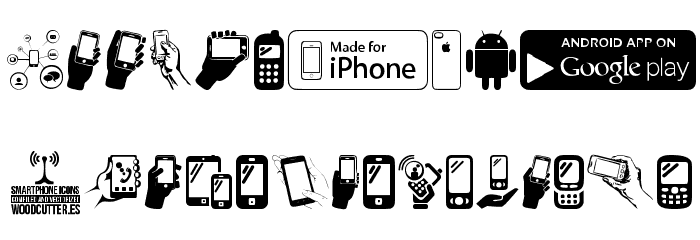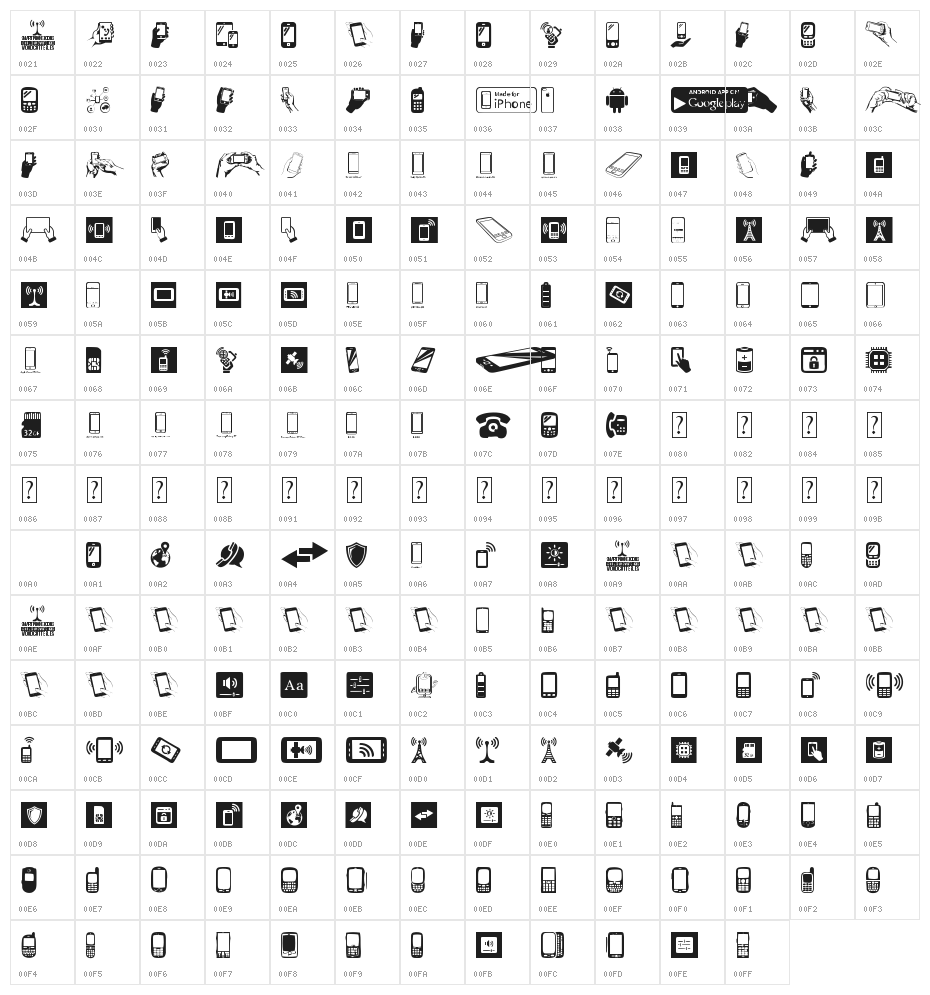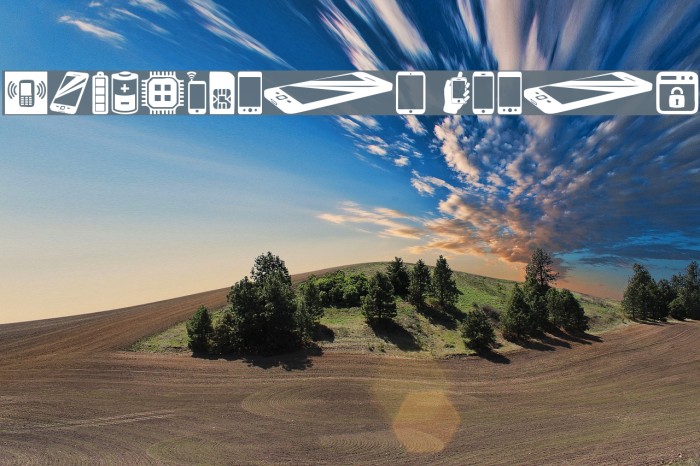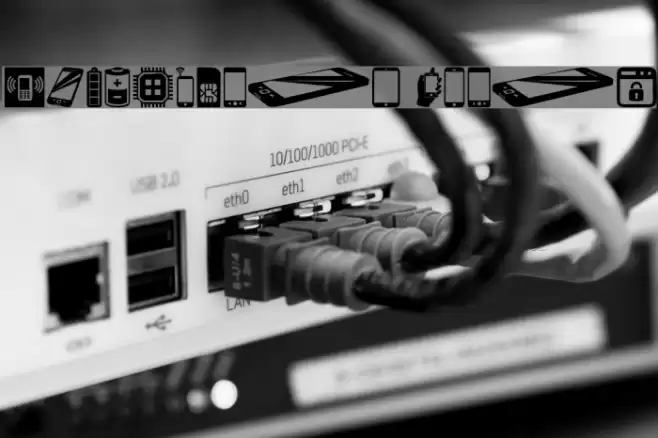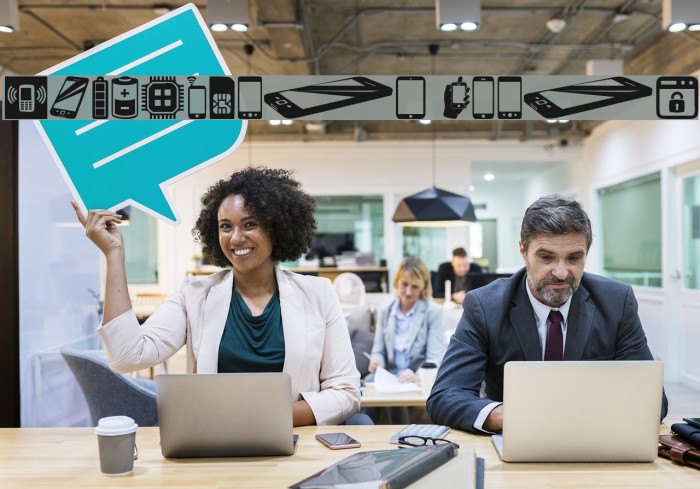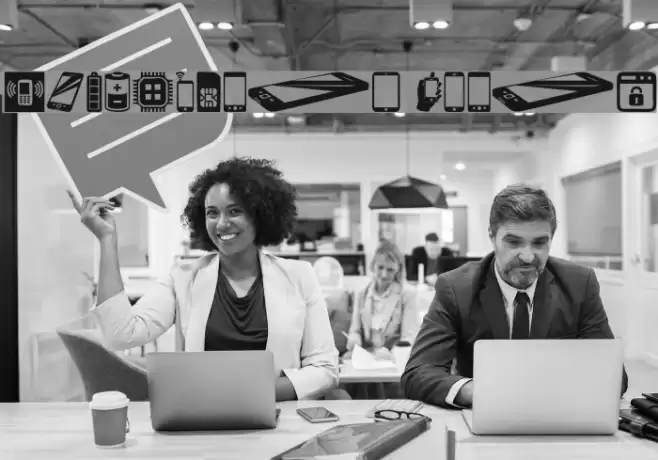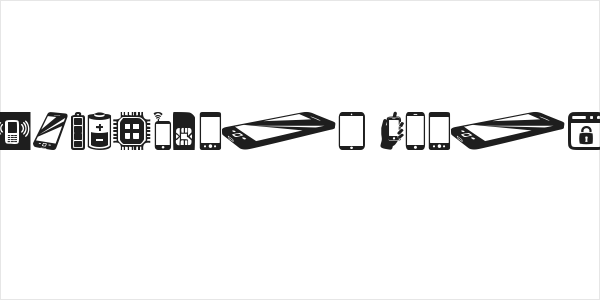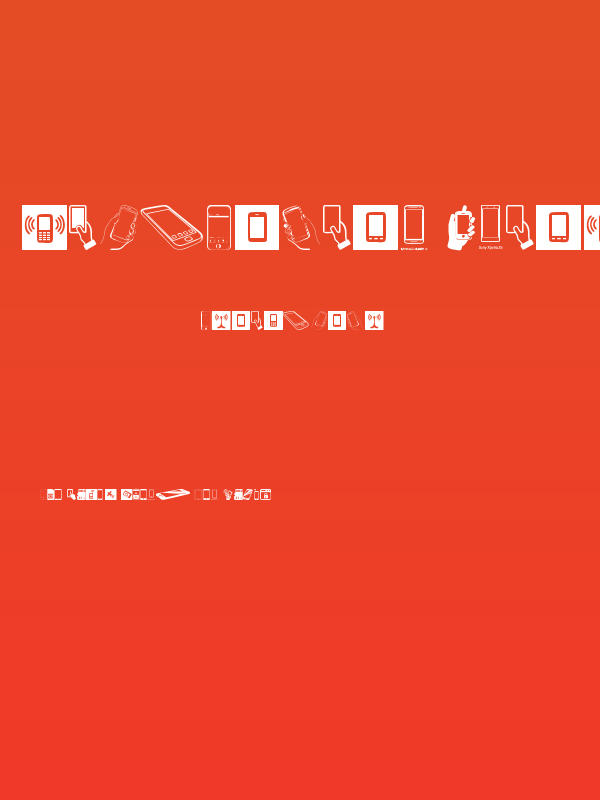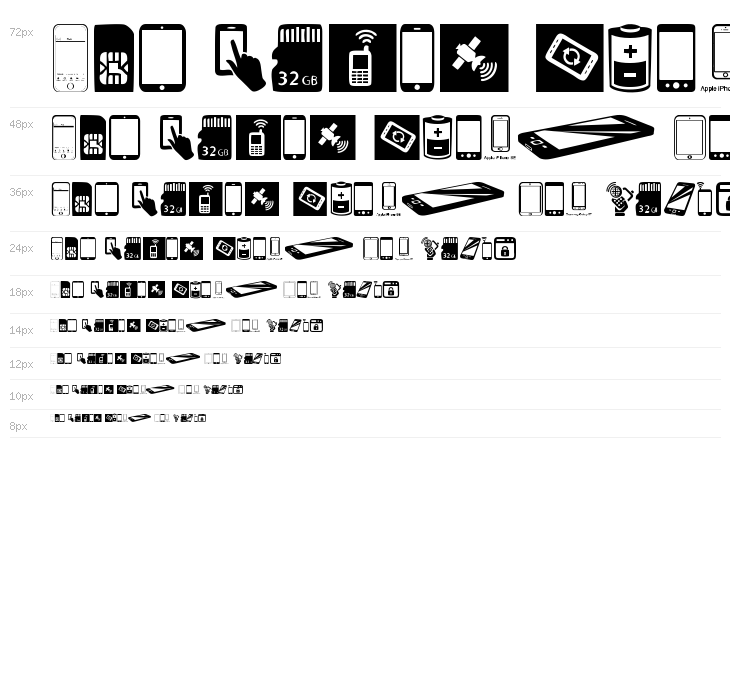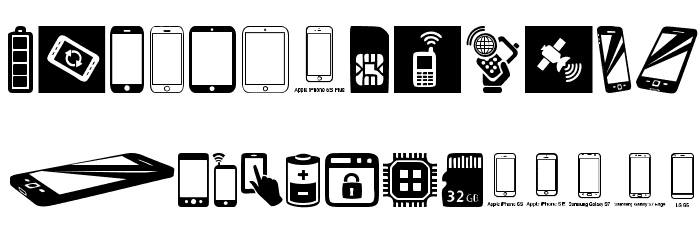
Smartphone Icons Font
Smartphone Icons Description
A collection of smartphone-themed icons featuring various phone shapes, hand gestures, app symbols, and technology-related elements in a bold, high-contrast, monochrome style. The icons are simple, easily recognizable, and designed for clear visibility at small sizes.
Overall StyleModern, Decorative
Use CaseIcons, UI elements, Infographics
Proposed ProjectsMobile app interfaces, tech presentations, infographics, website UI elements, instructional materials.